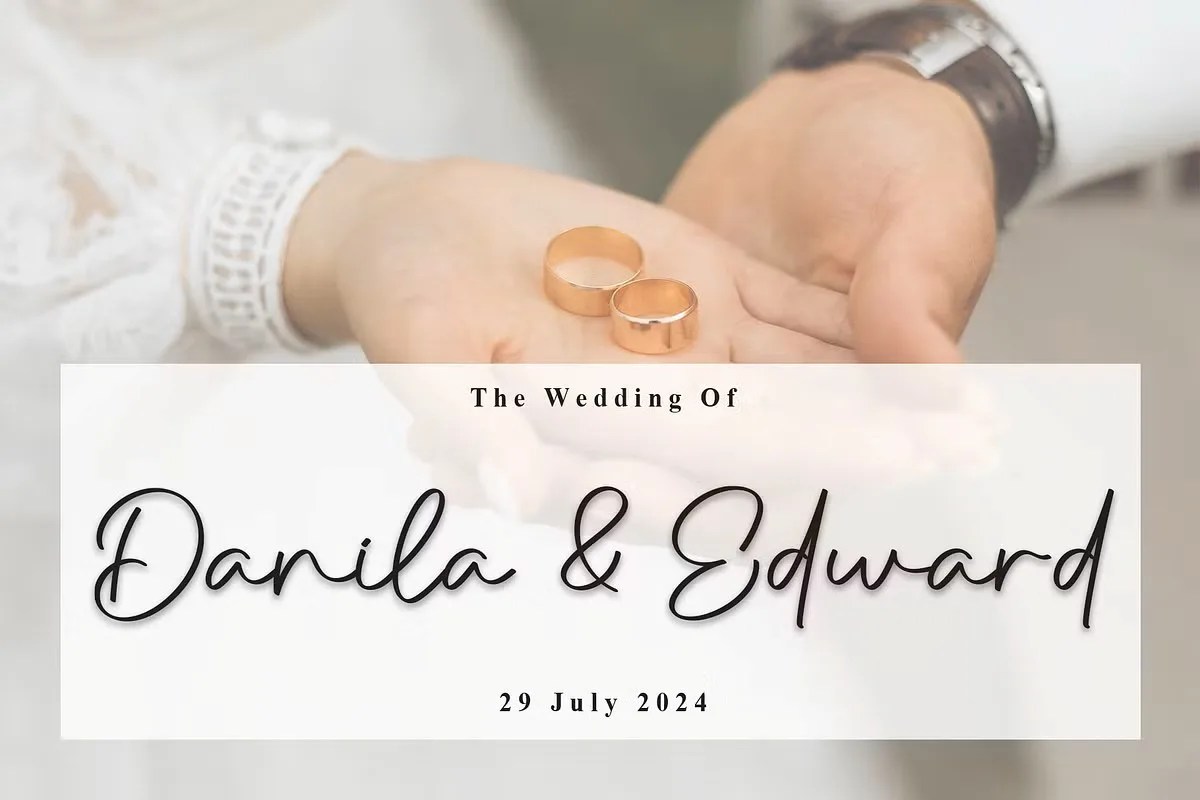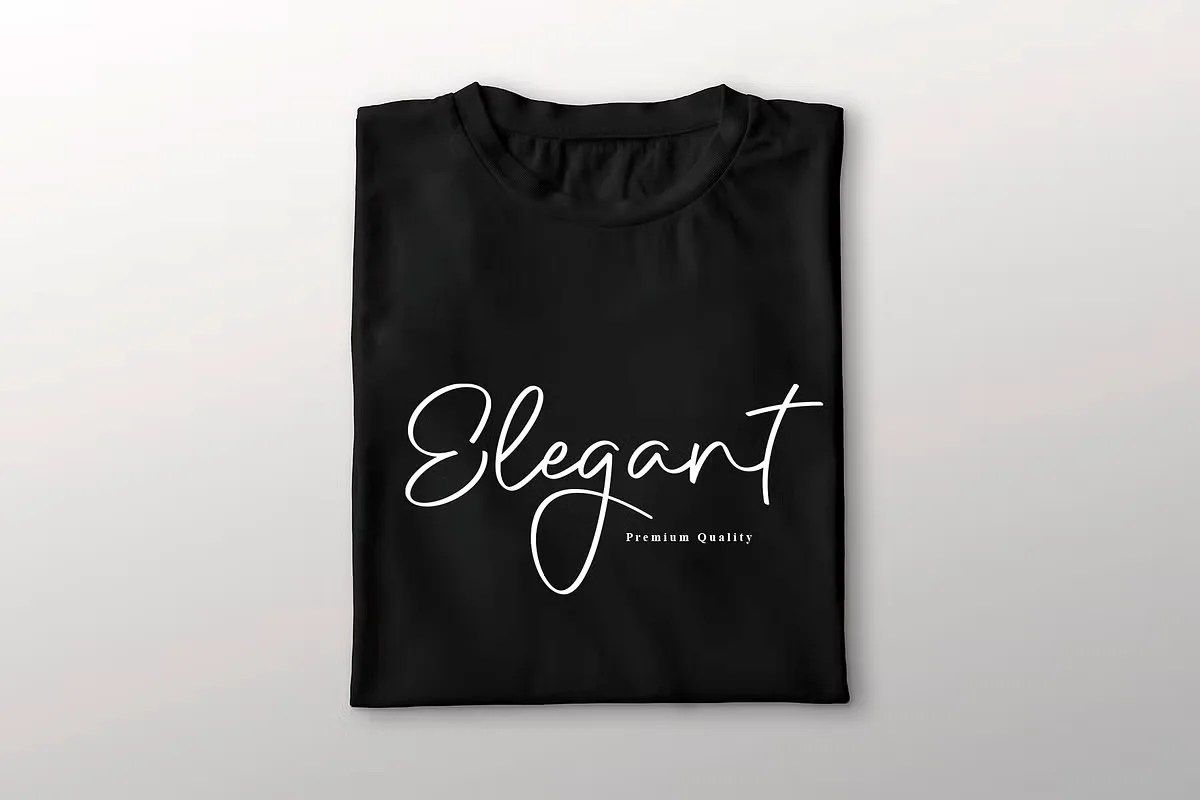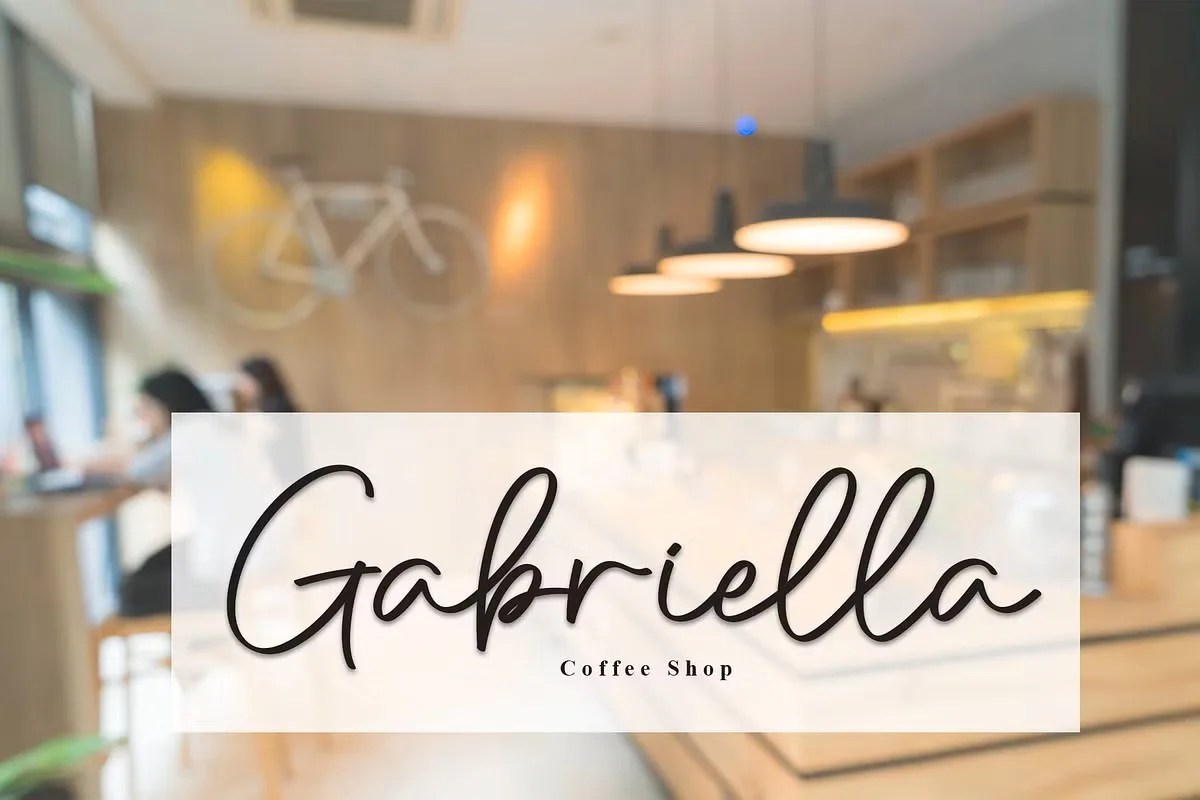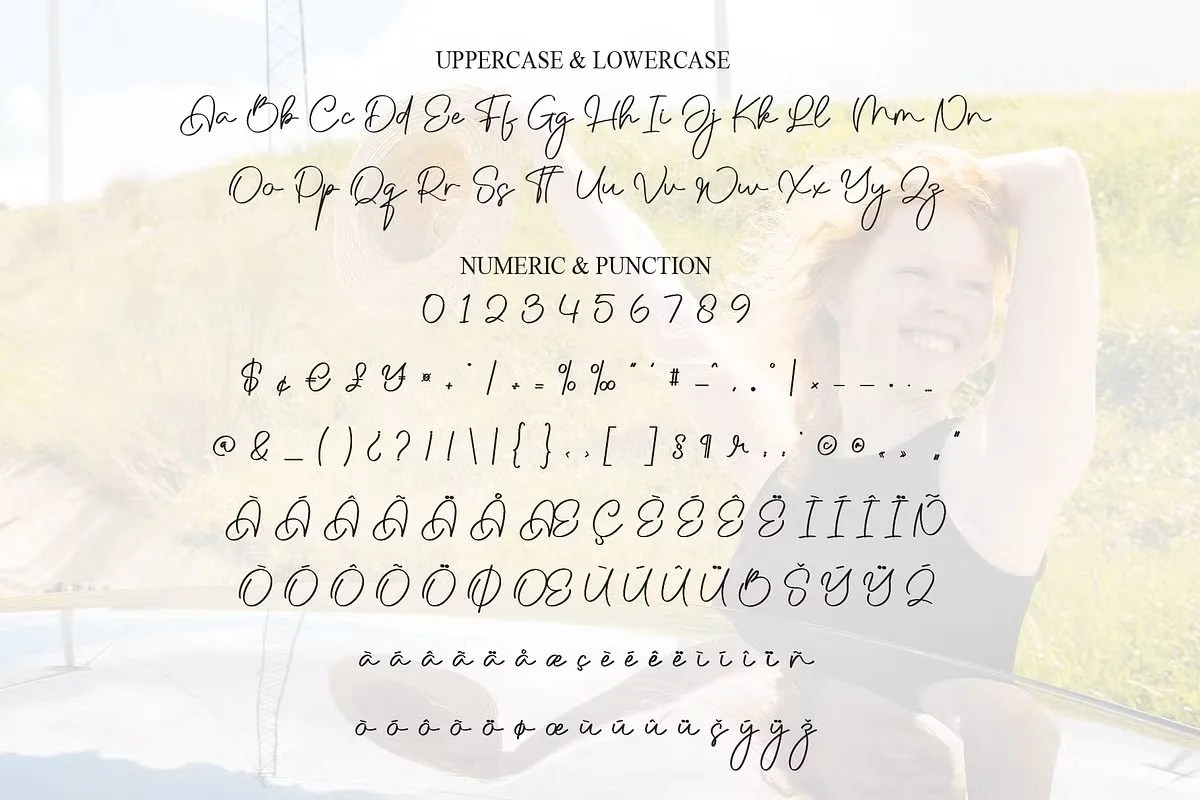
Delightful by Scratchones. This is a truly elegant script font that absolutely lives up to its name. It flows across the page with effortless grace and a touch of heartfelt romance. The font features beautiful, sweeping letterforms that create a personal, handwritten feel. This makes it perfect for projects that need to communicate warmth and sincerity. Delightful adds a touch of class to everything it touches.
This font is an ideal choice for projects that require a touch of romance and sophistication. Specifically, it is a go-to for wedding invitations, save-the-dates, and other event stationery. It immediately sets a beautiful and personal tone. Furthermore, this elegant script font is perfect for creating memorable logos for photographers, boutique shops, or lifestyle bloggers. Its personal touch helps build a memorable brand identity that feels both professional and approachable. Use it to add a stylish flourish to quotes or announcements on social media.
• Flowing and elegant script style
• Features beauty, calligraphic strokes
• Ideal for wedding invitations, logos, and branding
• Adds a romantic and personal touch
Delightful